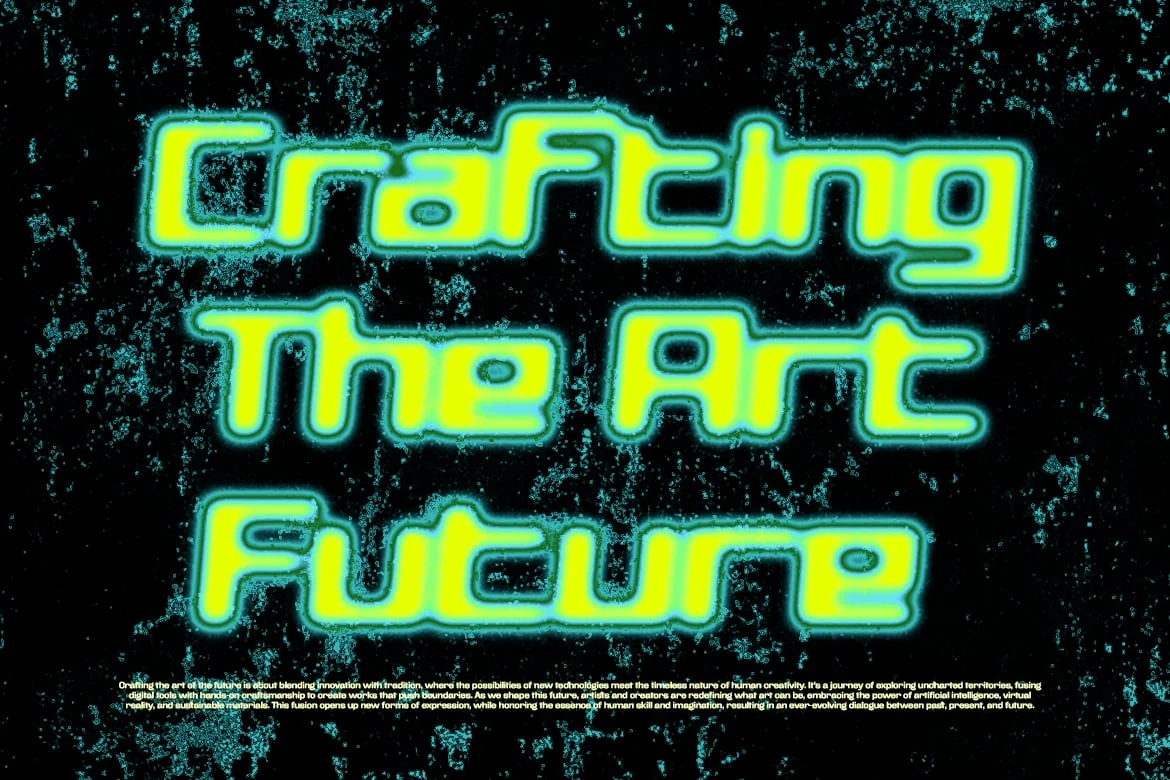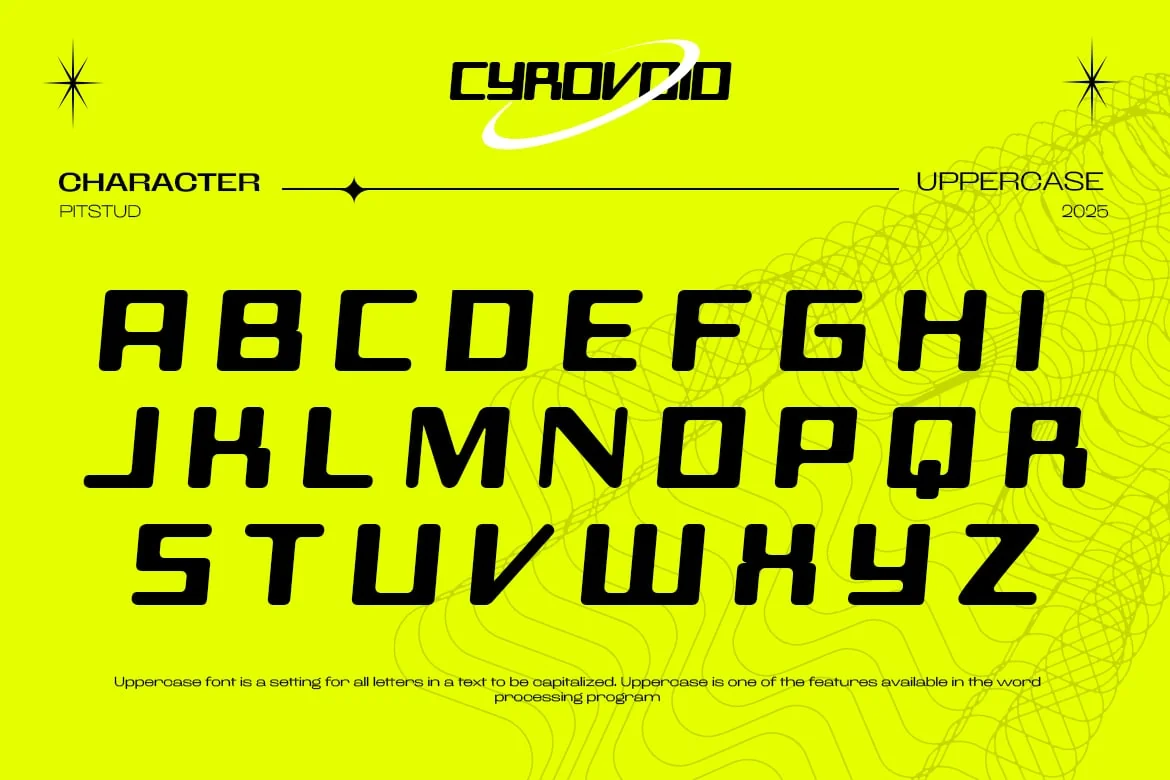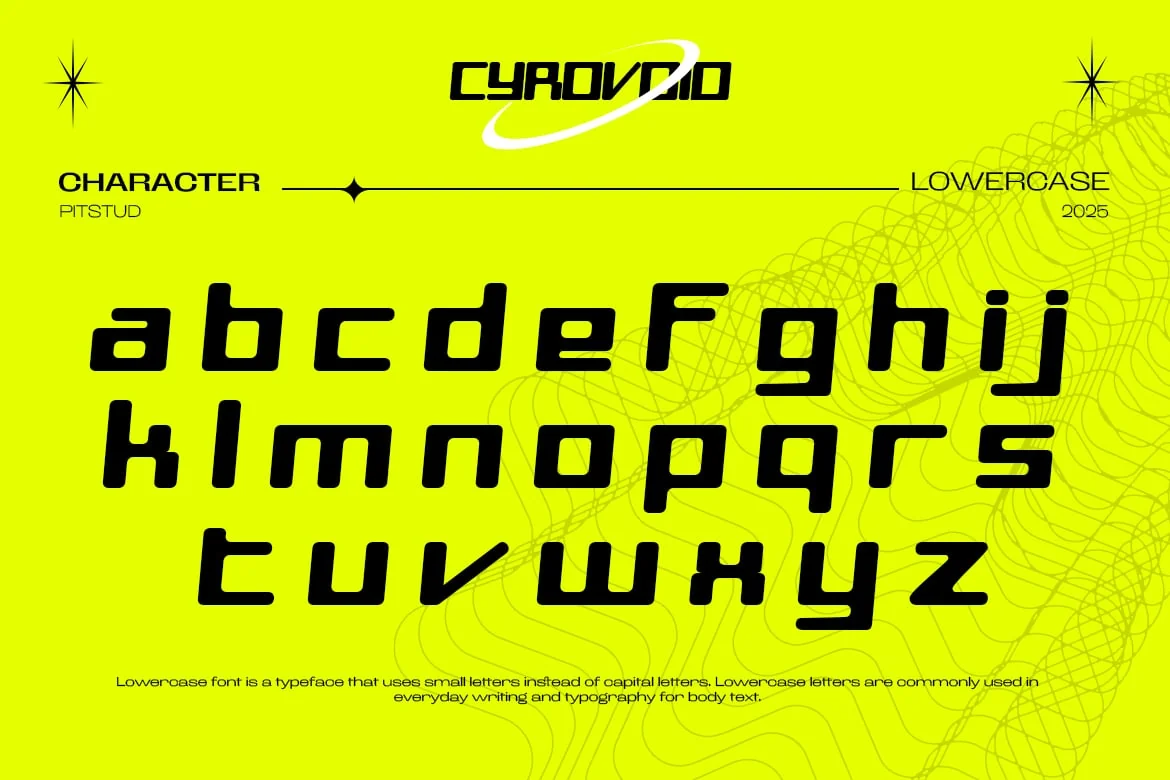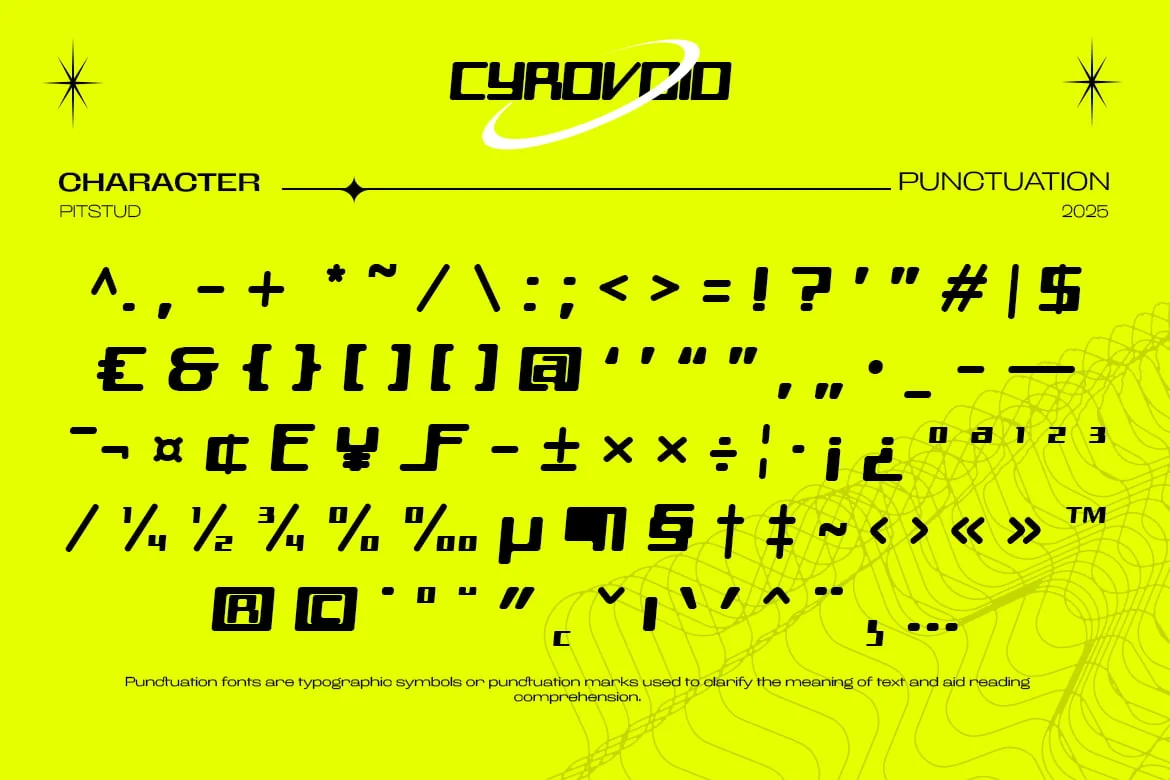
Cyrovoid – Futuristic Tech Font
is a premium futuristic tech font designed to bring a cutting-edge and cyberpunk aesthetic to your branding and design projects. Crafted with modern geometric precision and sleek digital-inspired elements, this font offers a sleek, stylish, and professional touch for logos, marketing materials, packaging, and digital applications.
Perfect For
Whether you’re working on a sci-fi branding project or high-tech user interface, Cyrovoid will give your design a modern and high-tech edge. It’s ideal for use in gaming logos, cyberpunk branding, futuristic UI design, and esports graphics.
Font Features:
- Clear and Versatile Design: Offers easy readability with a modern style that stands out in both digital and print mediums.
- Complete Character Set: Uppercase and lowercase characters, numbers, punctuation, and symbols.
- OpenType Features: Access alternates, ligatures, and unique stylistic sets to customize your design.
- Multilingual Support: Includes support for multiple languages, including English, Spanish, French, German, Portuguese.
Cyrovoid combines sharp angles, futuristic letterforms, and cyber-inspired details to create a striking visual impact while maintaining clarity. Whether you are designing for sci-fi movie posters, esports branding, or digital interfaces, this font adapts to your needs and enhances the visual appeal of your design.
Perfect For:
- Futuristic Branding: Enhance your brand with a sleek, high-tech style.
- Cyberpunk Logos: Create bold, digital-era logotypes.
- Esports & Gaming: Ideal for gaming-related branding and UI design.
- Tech Startups: Perfect for AI, crypto, and futuristic digital projects.
- Movie & Sci-Fi Posters: Add a dystopian or futuristic touch to headlines and titles.